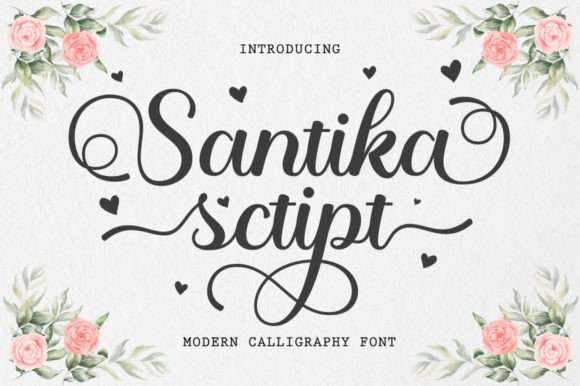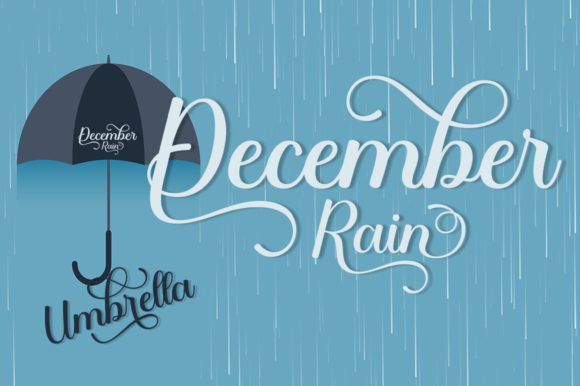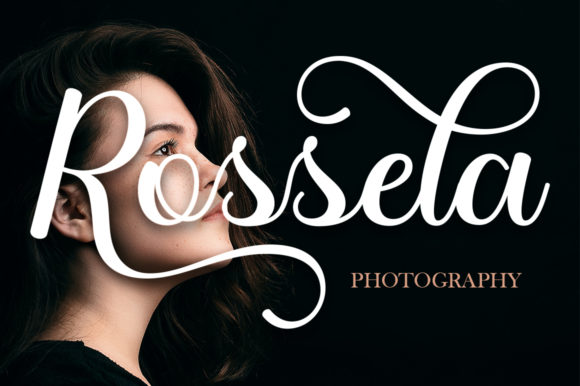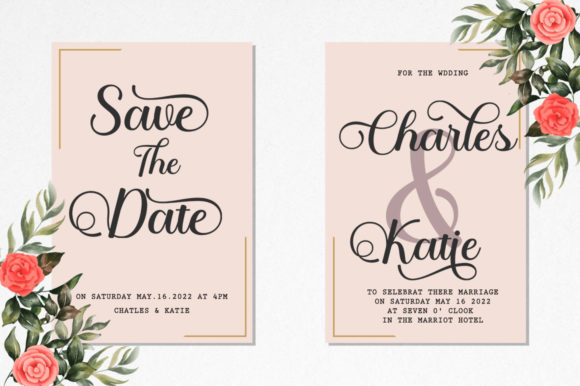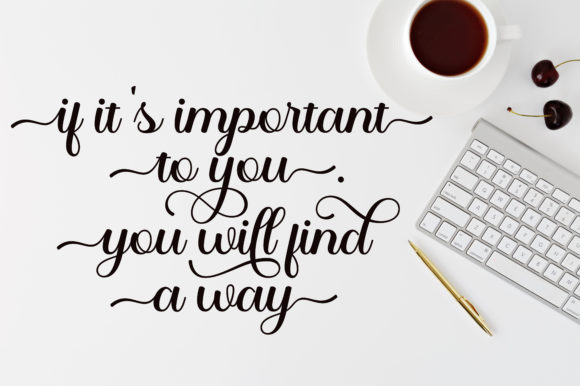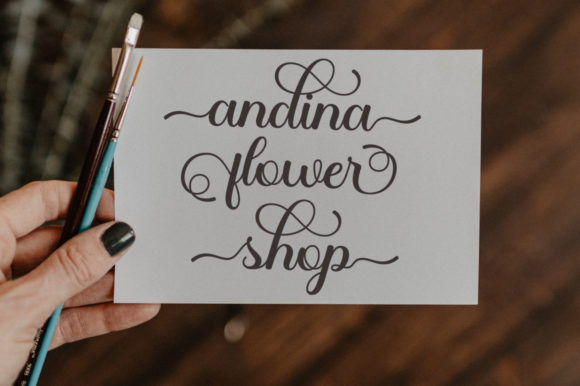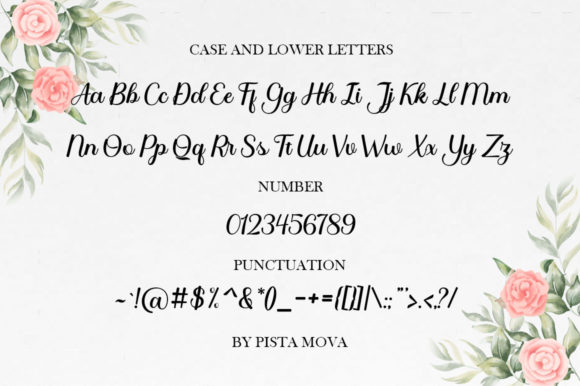
Santika Script Font
About Santika Script Font
Santika Script is an elegant script font with a contemporary atmosphere and impeccable form, inspired by timeless classic calligraphy. This font is PUA encoded which means you can access all of the glyphs and swashes with ease!